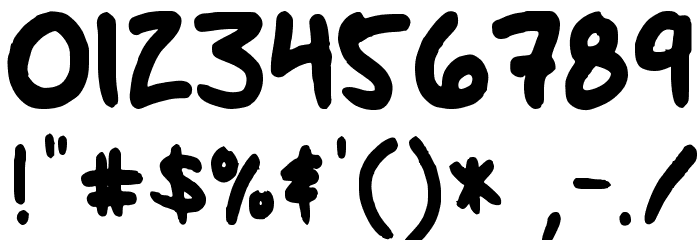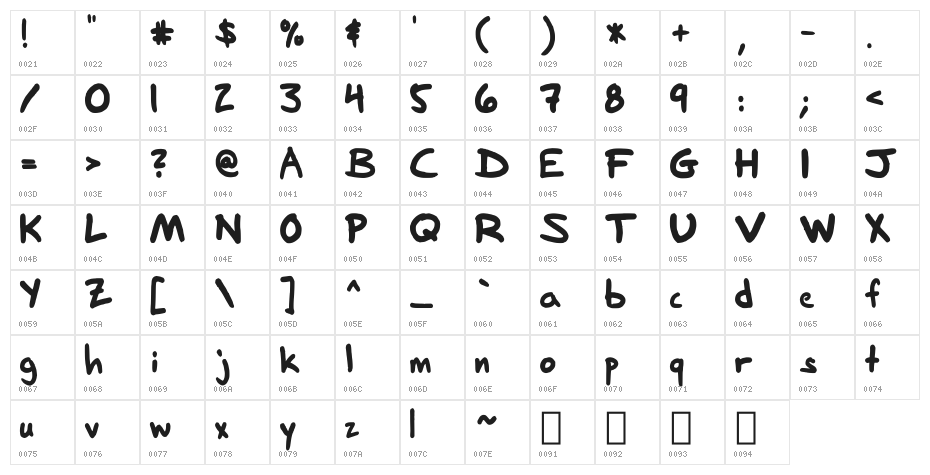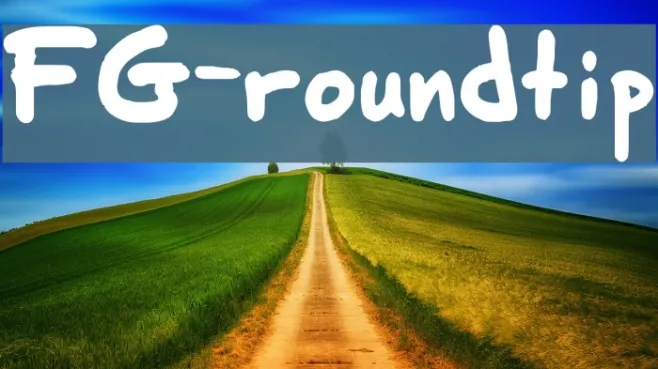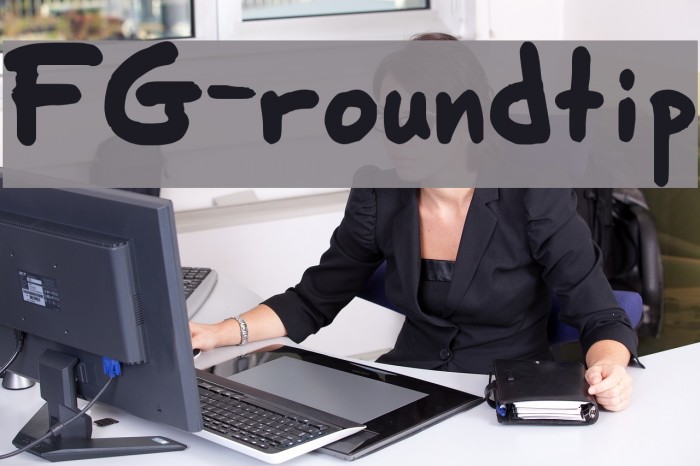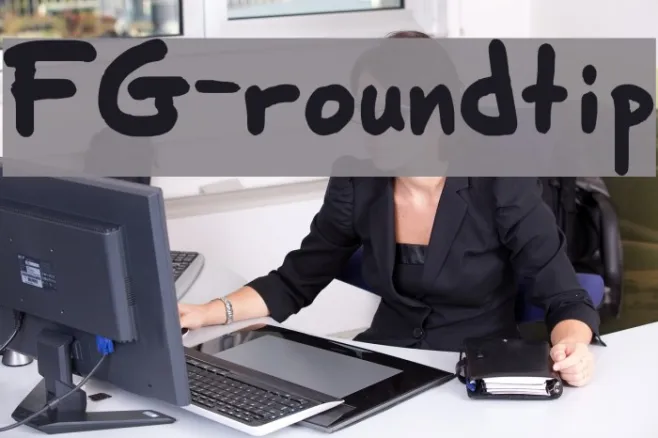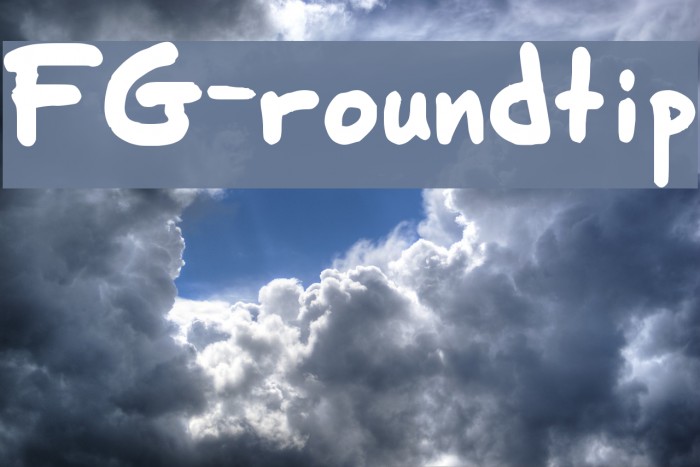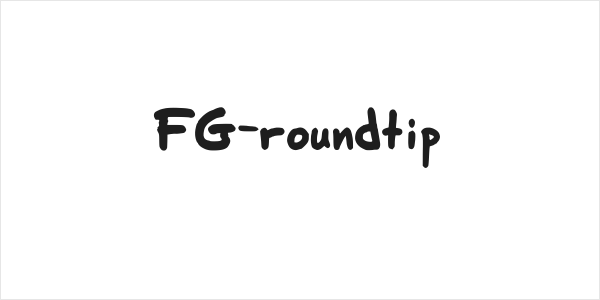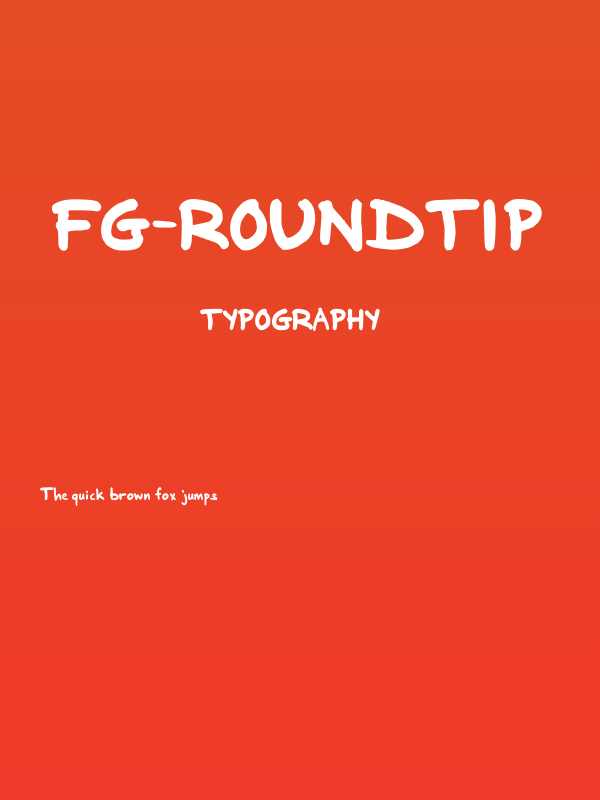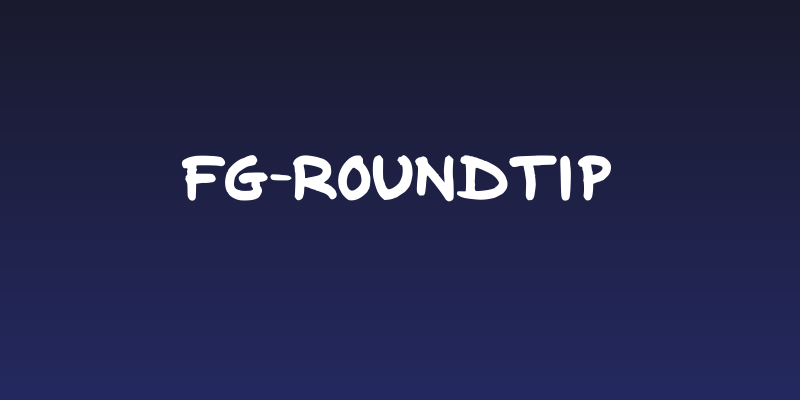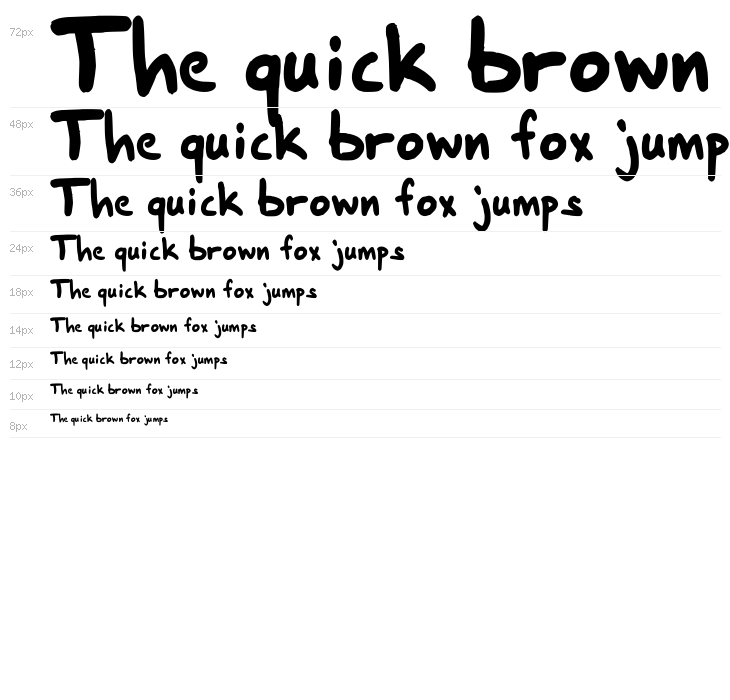
FG-roundtip Font
FG-roundtip Description
This playful and bold font features rounded edges and a hand-drawn aesthetic, giving it a casual and friendly appearance. The characters are slightly irregular, adding to the whimsical charm. The uppercase and lowercase letters maintain a consistent style, with a noticeable thickness that ensures readability. Numbers and special characters are equally bold and rounded, making them stand out. This font's informal style is perfect for projects that require a personal touch or a fun, approachable vibe.
| Proposed Projects | Ideal for children's books, playful branding, casual invitations, and creative posters. |